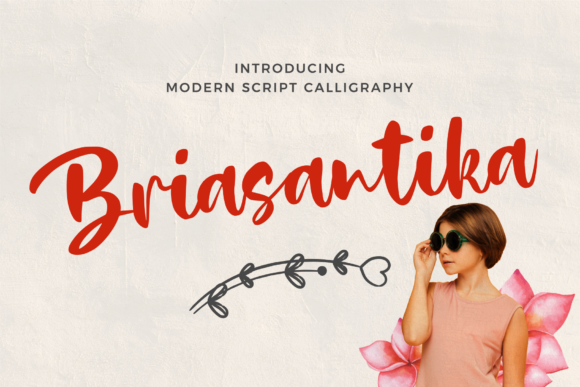
Unleash the Allure of Briasantika : A Handwritten Font Symphony
In a realm where stories are spun, and emotions dance, there dwells a font family that captures the essence of the written word like no other - Briasantika. This enchanting script font, crafted by the masterminds at Brithostype, invites you to embrace the art of storytelling, injecting a touch of elegance, warmth, and authenticity into your creative endeavors.
Briasantika's fluid strokes and graceful curves mimic the natural flow of handwriting, lending an intimate, personal touch to your projects. Each letter dances across the page, carrying with it a whisper of whispered secrets, heartfelt confessions, and poetic musings. Whether you're penning wedding vows, crafting heartfelt thank-you notes, or creating captivating posters, Briasantika becomes your trusted companion, transforming your words into visual masterpieces.
Imagine your wedding invitations adorned with Briasantika's graceful script, the letters flowing like a cascade of petals, hinting at the love story about to unfold. Or, envision thank-you cards penned in Briasantika's elegant strokes, each word a heartfelt expression of gratitude. Flyers and posters designed with Briasantika come alive, capturing the attention of passersby with their whimsical charm.
Briasantika's versatility extends beyond personal correspondence and marketing materials. Its captivating style lends itself beautifully to logos, adding a touch of sophistication and uniqueness to your brand identity. Whether you're a budding entrepreneur, a creative professional, or a passionate crafter, Briasantika elevates your designs, leaving a lasting impression on your audience.
Let Briasantika carry your words into the hearts of your readers, creating a symphony of emotions that lingers long after the page is closed. Download Briasantika today and embark on a journey of creative expression, where every word carries the weight of authenticity and the beauty of the handwritten form.